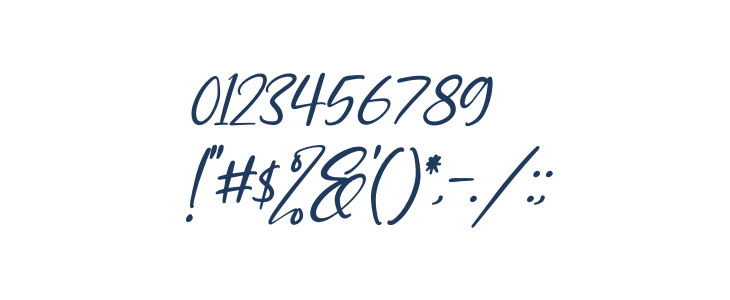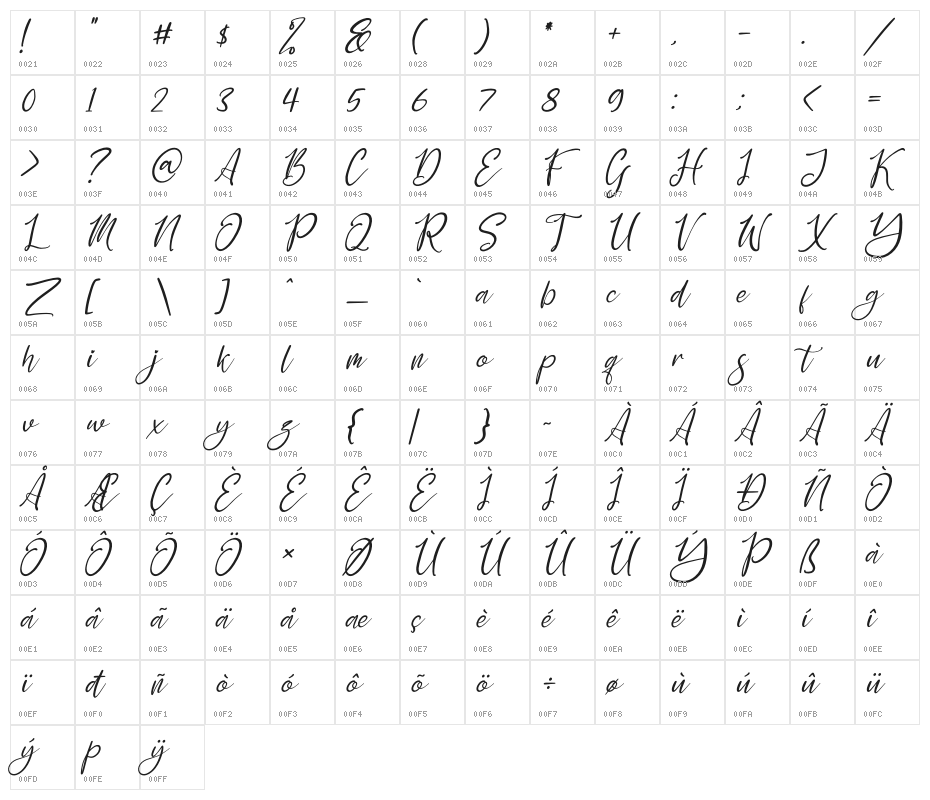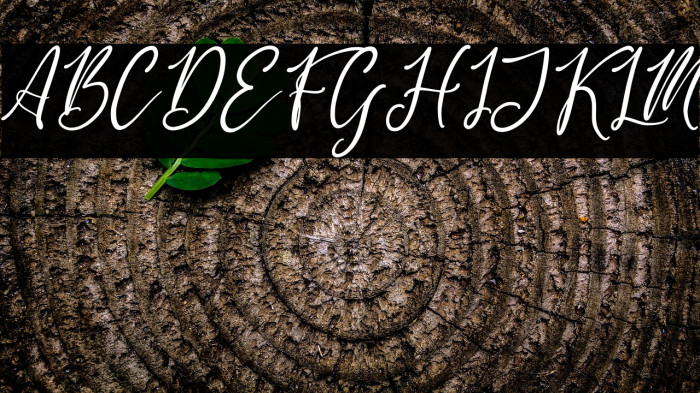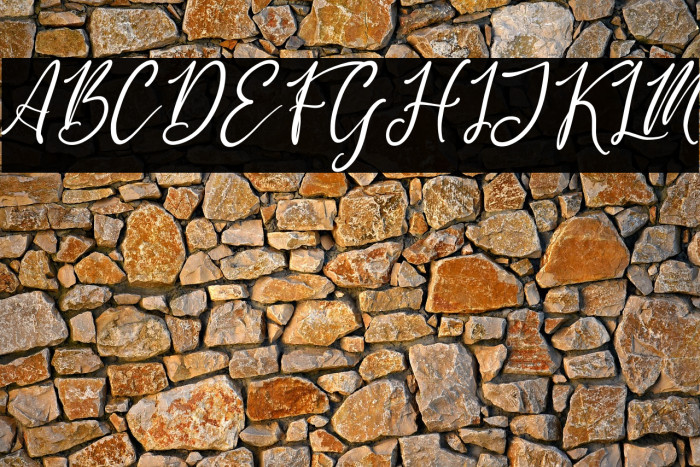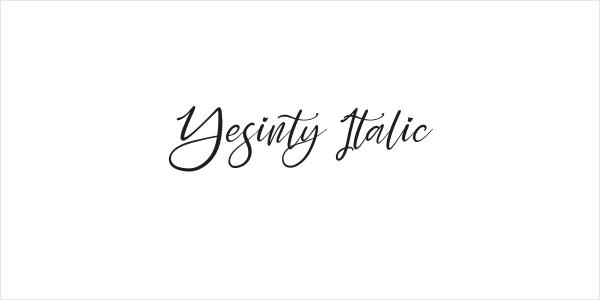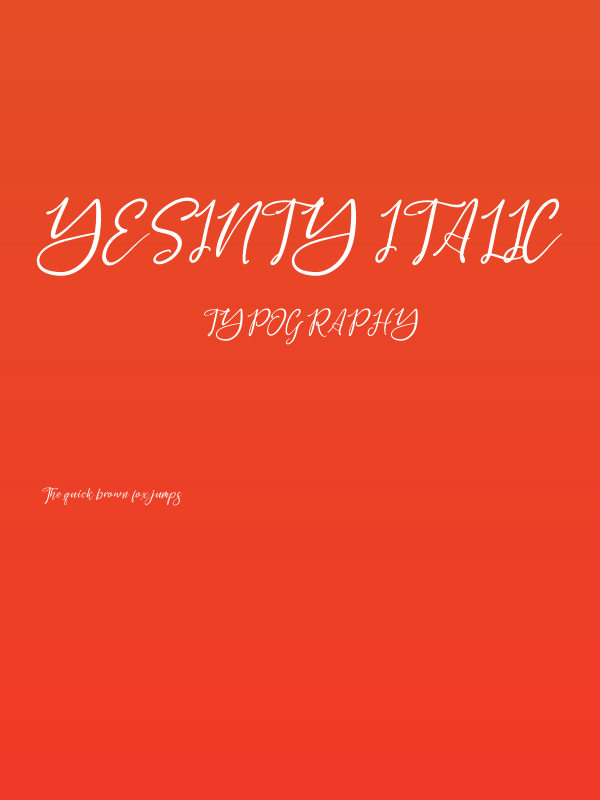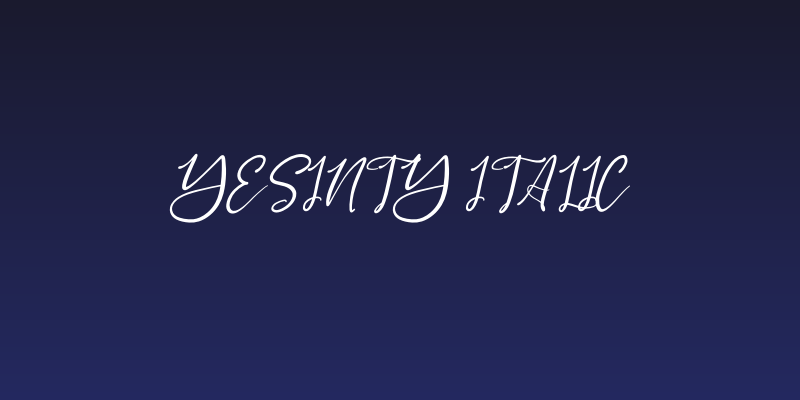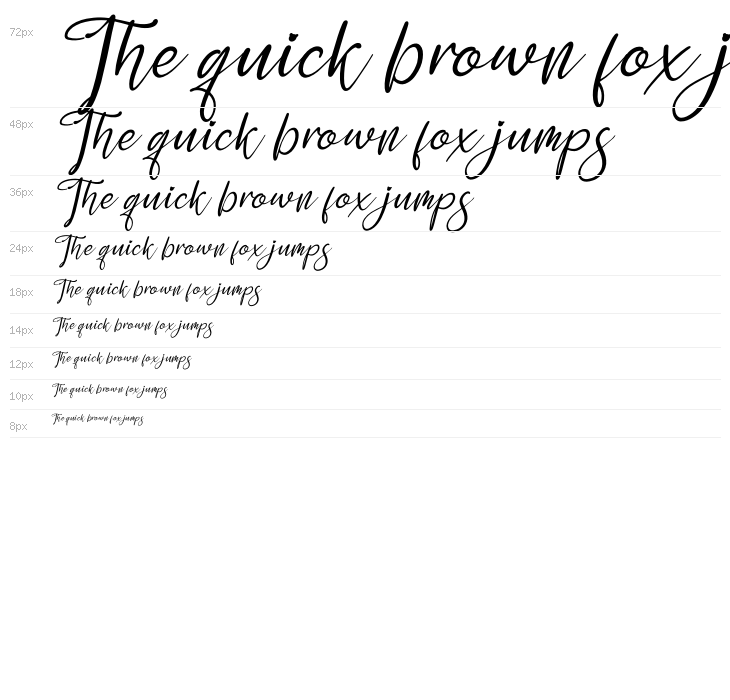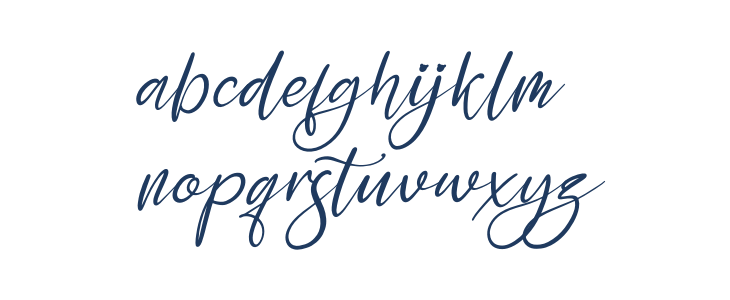
Yesinty Italic Font
Yesinty Italic Description
This font features an elegant, flowing script style that mimics the fluidity of cursive handwriting. The characters are connected with smooth, sweeping strokes, giving it a sophisticated and artistic appearance. The uppercase letters are ornate and slightly larger, while the lowercase letters maintain a consistent rhythm and flow. The numerals and special characters are designed to match the overall aesthetic, with graceful curves and a harmonious balance. This font is ideal for projects that require a touch of elegance and personal flair.
| Overall Style | Elegant, Artistic |
| Use Case | Headlines, Invitations, Logos |